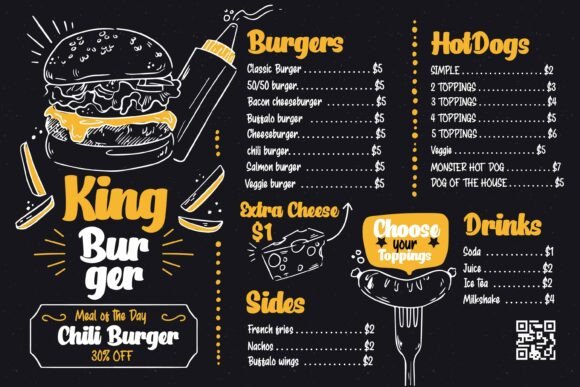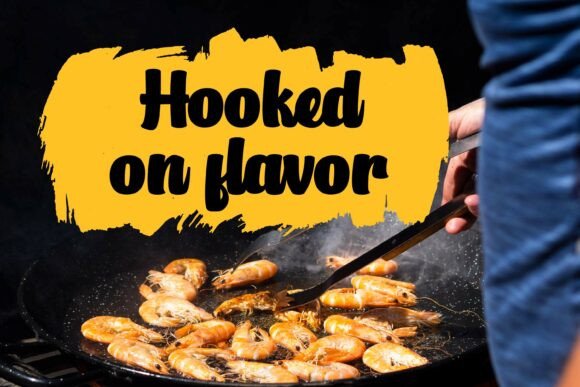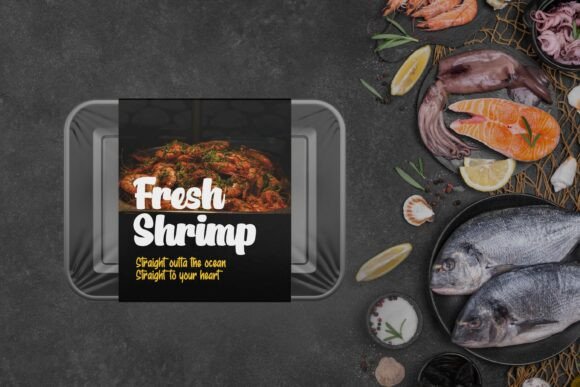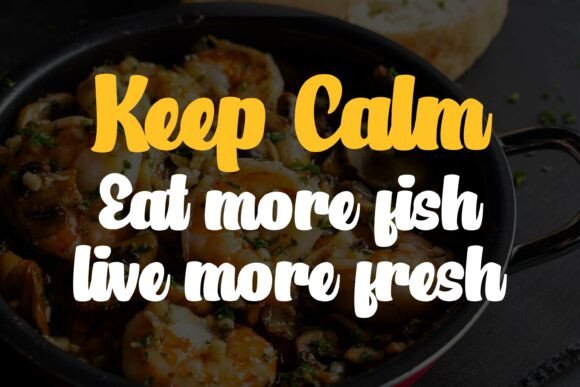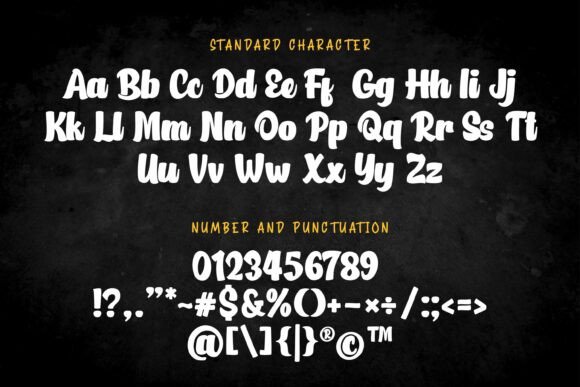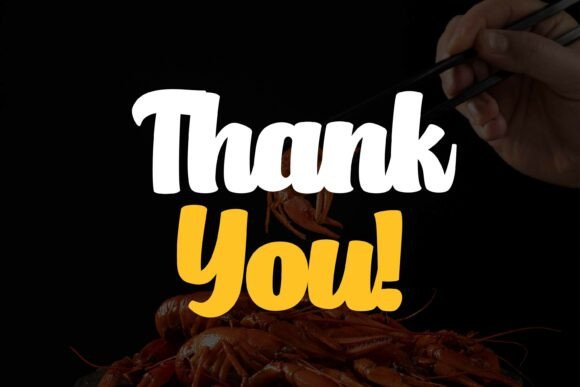
Introduction to Chunky Shrimp Font
Have you ever stared at a blank canvas, brainstorming ideas for your next design project, only to be struck by the perfect concept – a playful food truck logo or a mouthwatering recipe poster? For designers like you, the right font can be the missing piece that brings your vision to life. That’s where the Chunky Shrimp Font comes in, a bold and eye-catching display font that’s guaranteed to add a touch of humor and whimsy to your creative project.
As a valuable design resource, Chunky Shrimp Font offers a unique blend of high-quality, playful typography that’s perfect for a variety of applications, from snack packaging to comic titles. With its transparent background and free download option, you can easily incorporate this font into your next design project and make it instantly noticeable.
Key Features of Chunky Shrimp Font
- Unique, bold font style with a transparent background for versatility
- Optimized for high-resolution displays, ideal for print and digital designs
- Perfect for adding a playful, eye-catching touch to your design projects
Honest Review: Chunky Shrimp Font
I recently stumbled upon the Chunky Shrimp Font, and I must say it’s a delightful addition to any design project. As a designer, I’m always on the lookout for high-quality fonts that can elevate my work. This one definitely delivers.
Here’s what works well:
- Unique and playful design: The Chunky Shrimp Font is unlike any other font I’ve come across. Its quirky charm makes it perfect for creative projects that need a bit of whimsy.
- High-quality design: The font is well-crafted and has a professional feel to it, making it suitable for a wide range of design applications.
- ⚠️ Limited character set: The font only includes uppercase and lowercase letters, with no special characters or punctuation.
- ⚠️ Transparent background: The font’s transparent background can make it difficult to use on certain backgrounds, so be sure to test it out before using it in a design project.
Overall, I’m impressed with the Chunky Shrimp Font, and I think it’s a great addition to any design resource collection. With a bit of creativity, it can be used in a wide range of design applications, from children’s books to advertisements and more.
How to Use Chunky Shrimp Font
Chunky Shrimp Font is a high-quality design resource that can elevate your creative project. With its unique and playful style, it’s perfect for adding a touch of whimsy to your designs.
Getting the Most Out of Chunky Shrimp Font
To get the most out of Chunky Shrimp Font, use it in conjunction with a transparent background to create a visually appealing design. Experiment with different font sizes and colors to add depth and interest to your project.
Chunky Shrimp Font is commonly used in creative projects such as:
Invitations and party decorations
Branding and marketing materials
Wedding and event designs